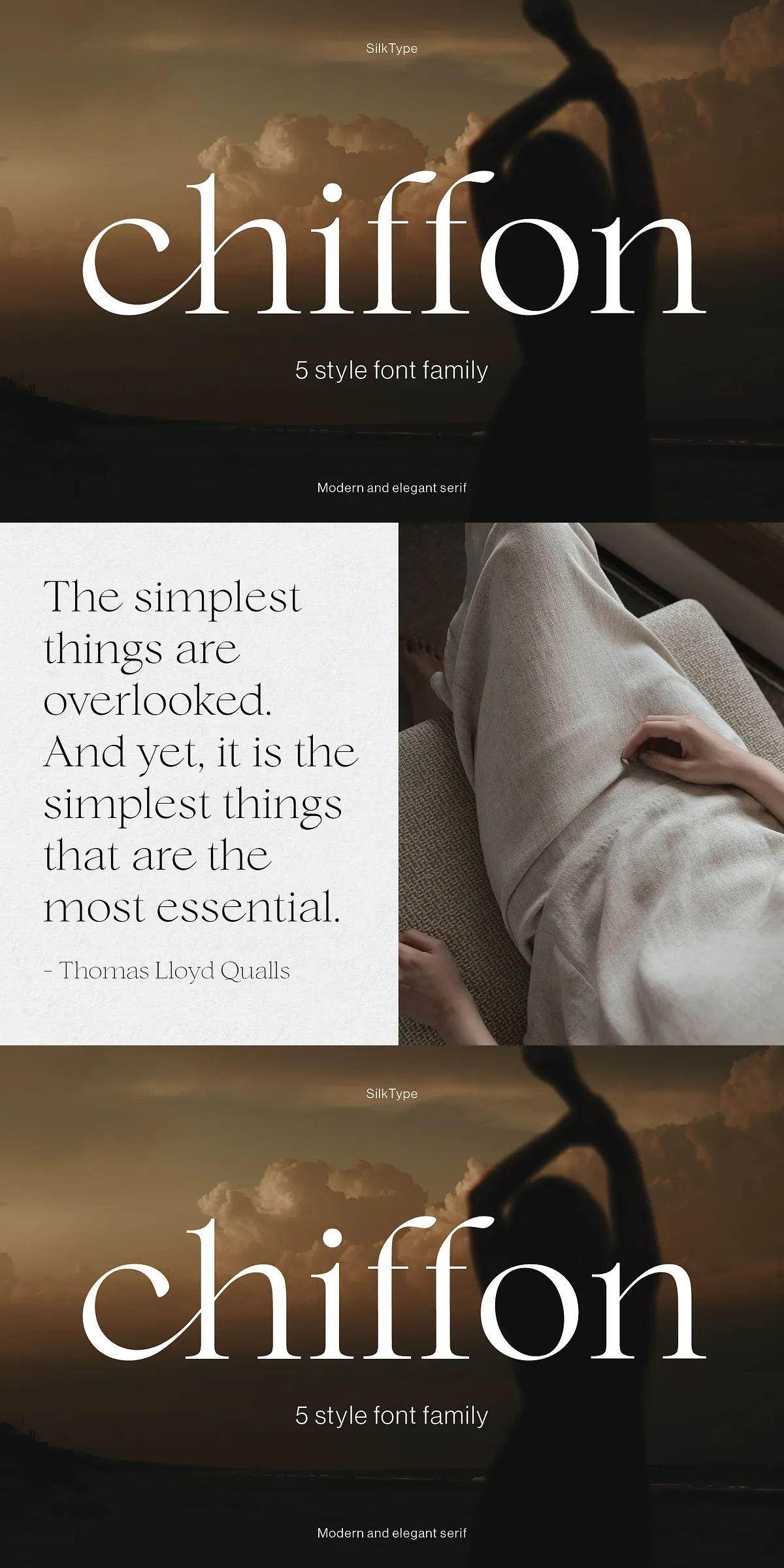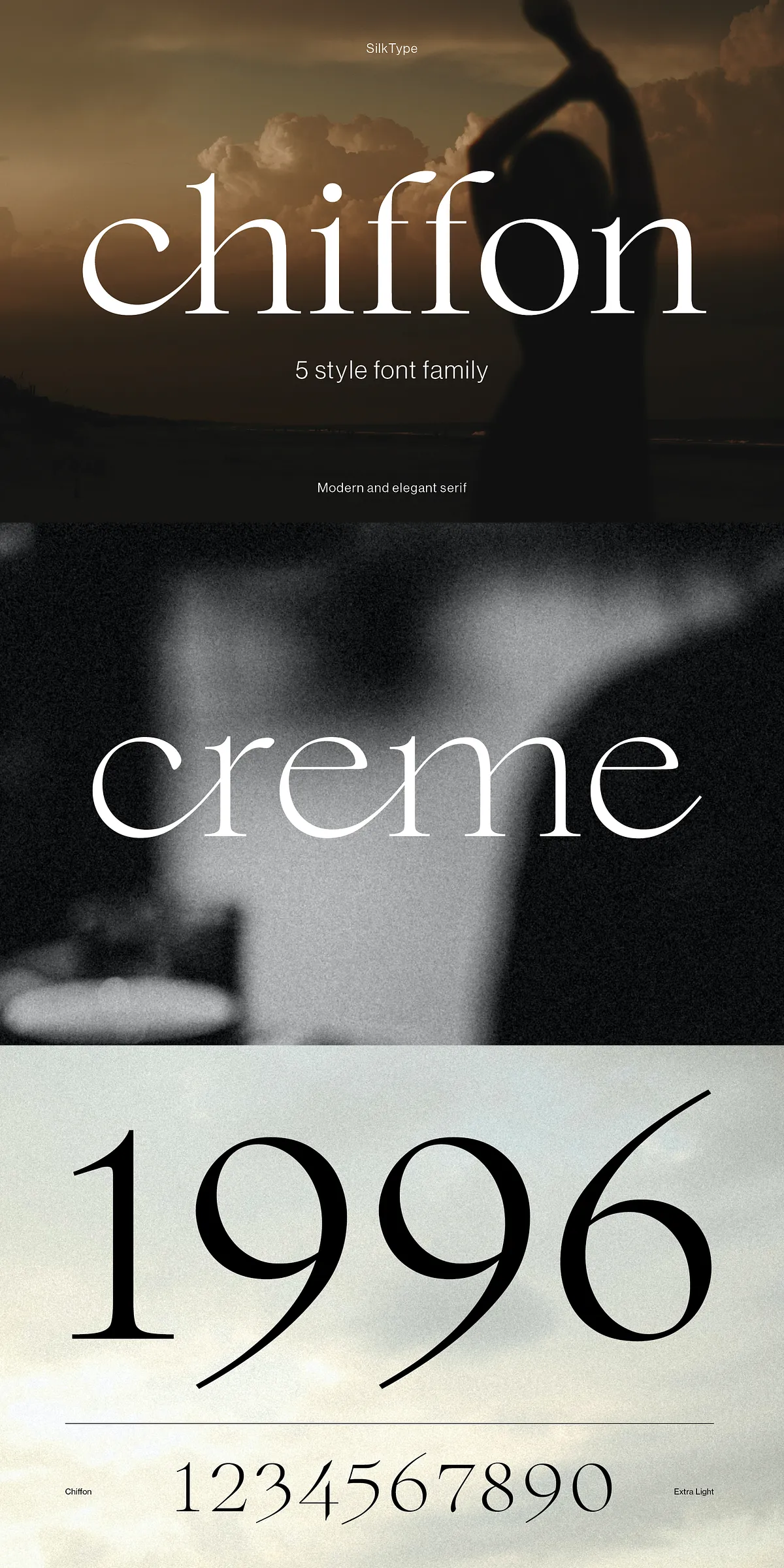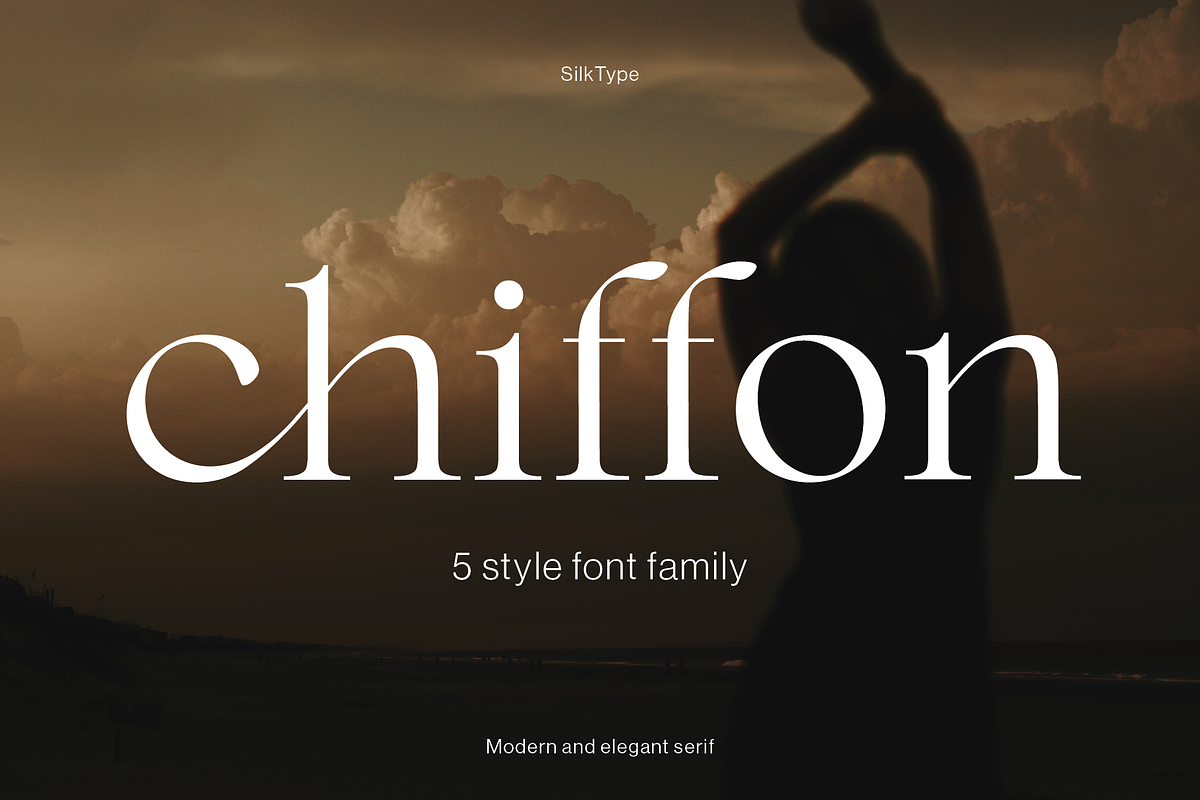
Step into a world of refined sophistication with Chiffon — a striking serif display typeface crafted for those who demand visual distinction. With its high-contrast structure and fluid, elegant curves, Chiffon turns every word into a work of art. This is not just a font; it’s a statement. Designed for impact, Chiffon excels where beauty meets boldness — ideal for luxury branding, fine editorial design, and premium visual communication.
Elegant Geometry Meets Expressive Detail: The Soul of Chiffon
At first glance, Chiffon captivates with its sweeping ascenders and delicate, tapering serifs. But it’s the subtleties that elevate its artistry. The typeface features three distinct variants of the letters ‘c’ and ‘e’, each thoughtfully designed and intelligently placed throughout the glyph set. These variations aren’t just decorative — they’re functional tools, giving designers precise control over tone and rhythm in every composition.
While the default forms flow with grace and harmony, the real power lies in customization. Through OpenType features and stylistic sets, users can seamlessly switch between alternate forms at the click of a button. This level of typographic freedom empowers you to match the font’s personality to your project’s mood — whether you need whisper-soft elegance or a bolder, more dramatic presence.
Five Weights for Every Mood and Message
Chiffon comes in five distinct weights — from Extra Light to Semi Bold — giving you unmatched versatility across different design contexts:
- Extra Light: Ideal for delicate headlines, luxury packaging, and subtle branding where refinement is key.
- Light: Perfect for elegant titles and modern editorial layouts with a soft, graceful touch.
- Regular: The balanced middle ground, excellent for body text in high-end magazines or digital interfaces.
- Medium: Adds presence without overwhelming — great for section headers and focal points.
- Semi Bold: Commands attention in posters, banners, and large-format prints with authoritative elegance.
Beyond Beauty: Full Typographic Control and Multilingual Reach
Chiffon is built for professionals who value precision as much as aesthetic power. With advanced OpenType features, you gain full access to:
- Stylistic alternates for ‘c’ and ‘e’ — activate them to inject unique character into every sentence.
- Positional variants for ligatures and punctuation — ensuring flawless text composition.
- Proportional spacing and kerning pairs — designed to optimize visual rhythm instantly.
Support extends beyond style. Chiffon features an extended Latin character set with full support for Western, Central, and South-Eastern European languages — including diacritics, ligatures, and language-specific punctuation. This makes it a reliable choice for international publications, global brand assets, and multilingual digital experiences.
Unlock Your Creative Potential: Where Chiffon Shines
Chiffon isn’t just for display — it’s a full-spectrum design tool. Use it to define brand identity, elevate editorial design, or transform digital experiences:
- Luxury Branding & Packaging: Make your product feel exclusive with a typeface that whispers refinement.
- Editorial & Magazine Layouts: Create striking headlines that draw readers in and hold their attention.
- High-End Event Invitations & Stationery: Bring sophistication to every printed detail.
- Website Headers & Banners: Use Chiffon for landing pages and hero sections to make a memorable first impression.
- App & UI Interfaces: Apply it subtly in navigation or title elements to add elegance and character.